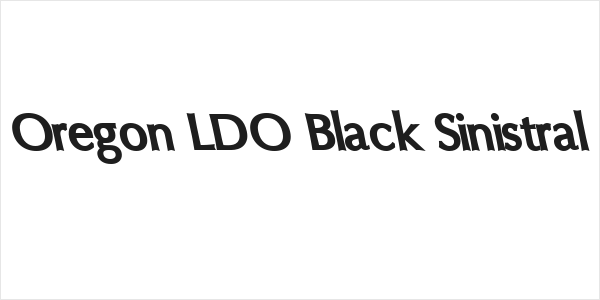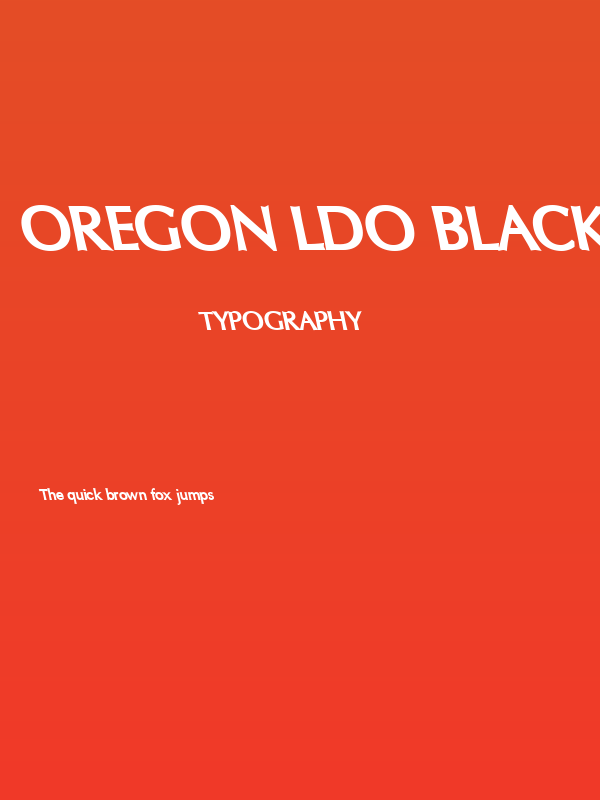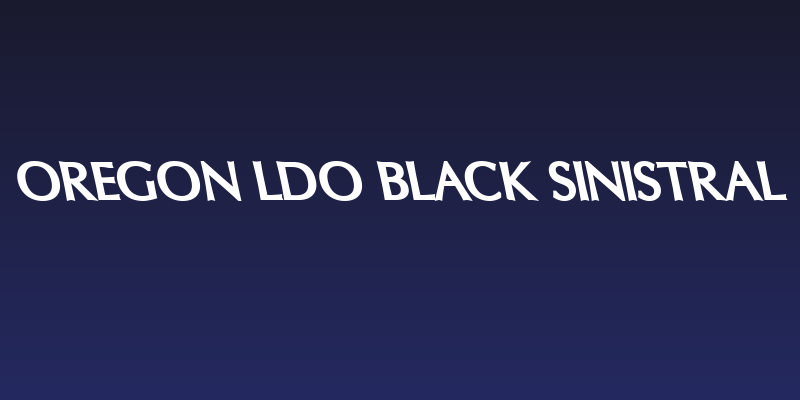
Oregon LDO Black Sinistral Font
Oregon LDO Black Sinistral Description
This font features a bold and dynamic style with a distinct slant, giving it a sense of movement and energy. The uppercase letters are strong and angular, while the lowercase letters maintain a consistent boldness, ensuring readability. The numbers are equally robust, matching the overall aesthetic. Special characters are designed with the same boldness, making them stand out. This font's unique slant and weight make it ideal for impactful designs.
| Proposed Projects | Ideal for branding, headlines, posters, and any design requiring a bold statement. |